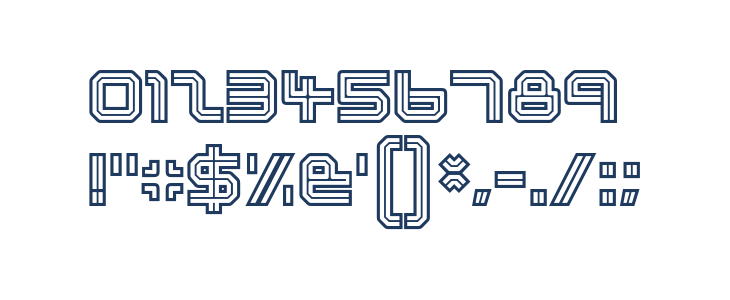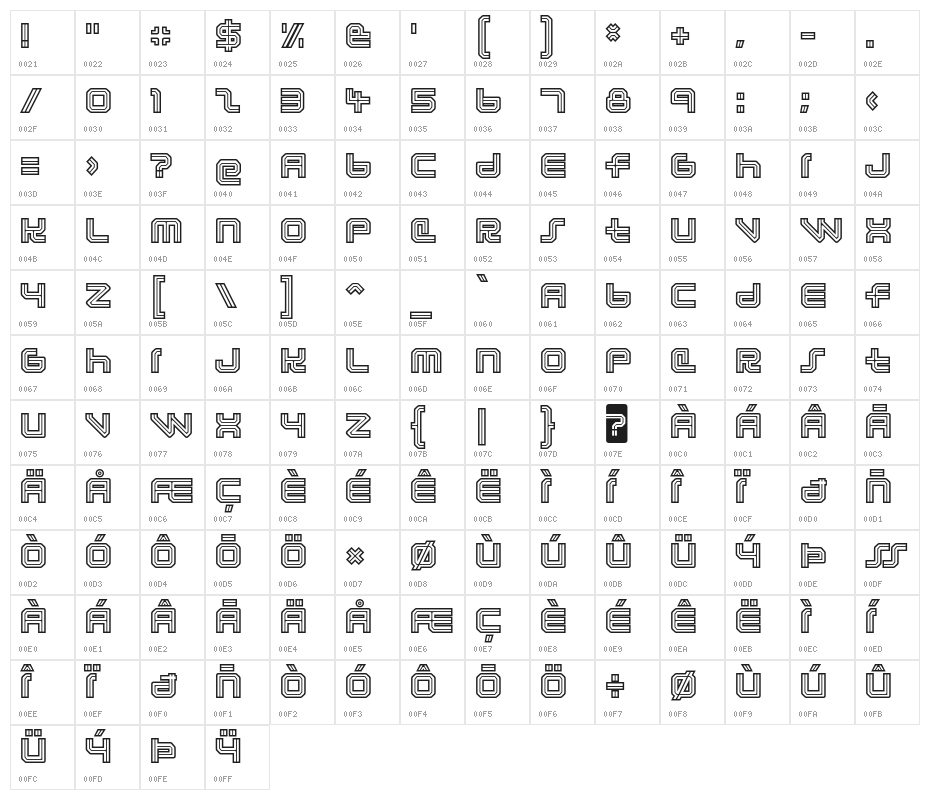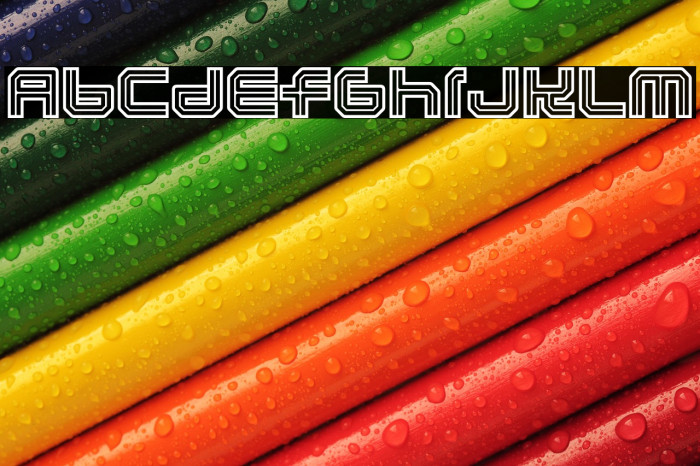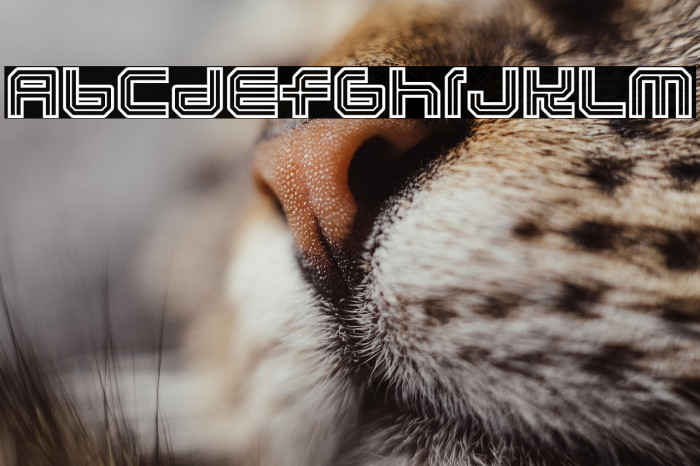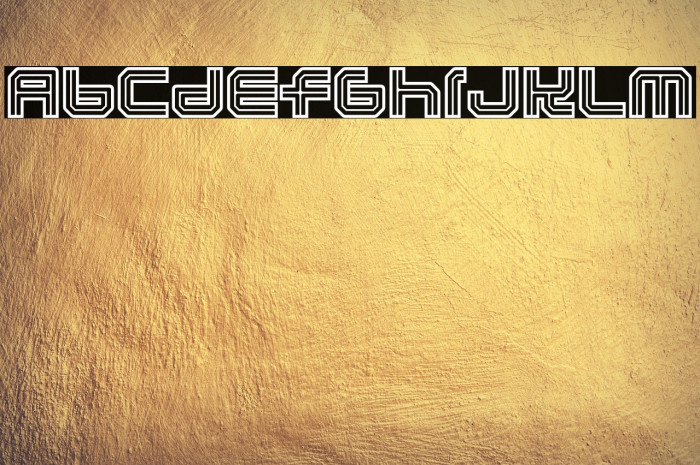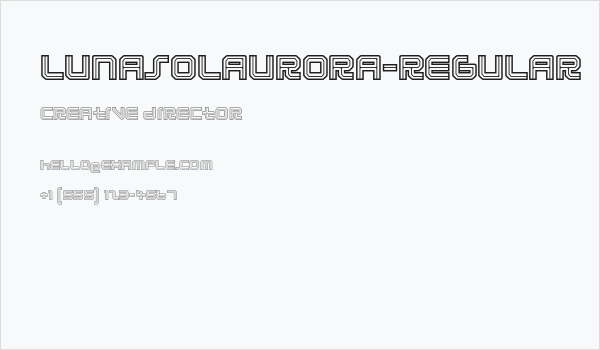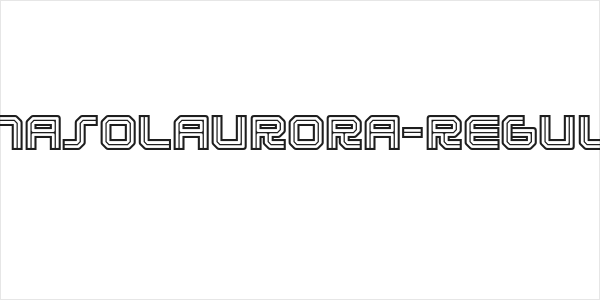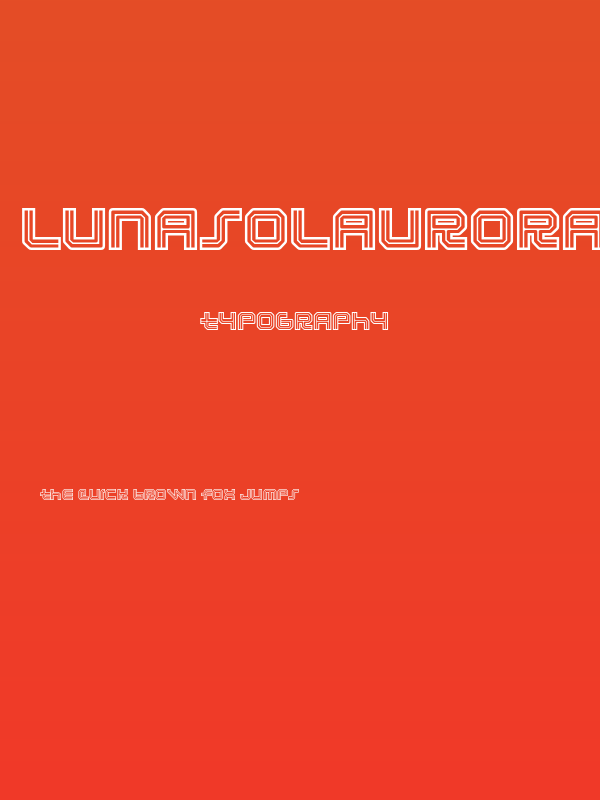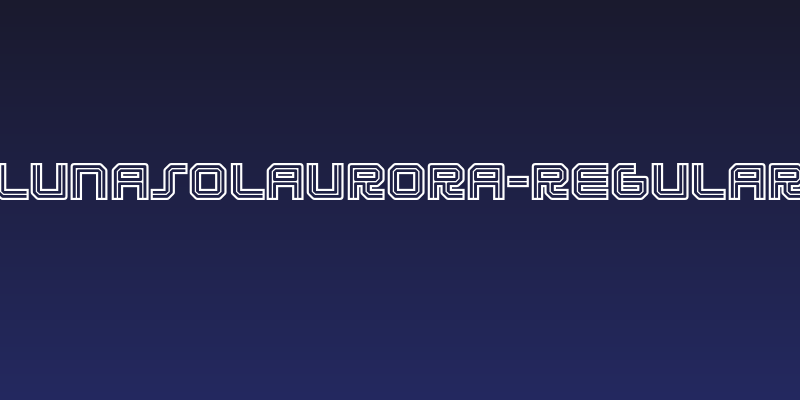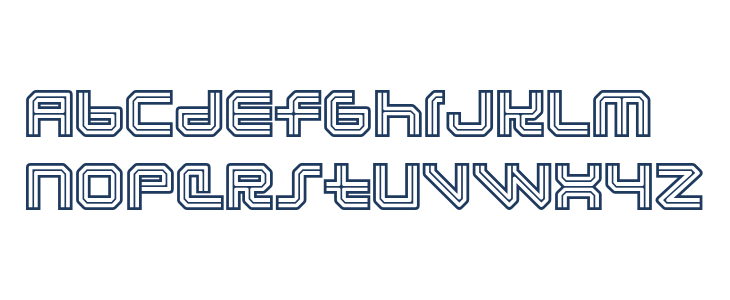
LunasolAurora-Regular Font
LunasolAurora-Regular Description
This font features a unique, futuristic design with a geometric and layered structure. Each character is constructed with multiple parallel lines, creating a three-dimensional effect that is both striking and modern. The uppercase and lowercase letters maintain a consistent style, with angular edges and a bold presence. Numbers and special characters follow the same design principles, ensuring uniformity across the font. The overall look is highly decorative, making it ideal for projects that require a standout typographic element.
Proposed ProjectsIdeal for sci-fi themed designs, technology branding, posters, and digital artwork.